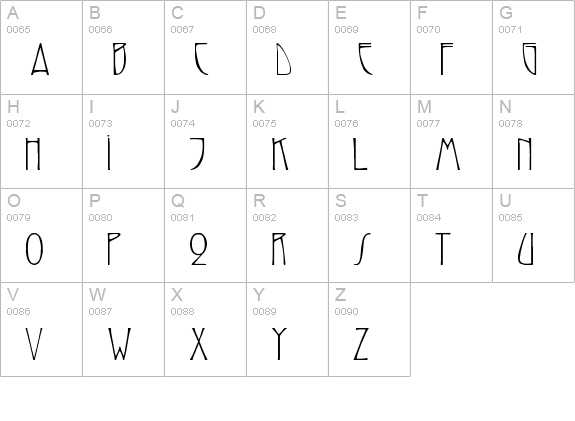
ReynoldsCaps Font Details
ReynoldsCaps font is a stunning and sophisticated typeface that exudes elegance and class. With its clean and sharp lines, this font is perfect for any design project that requires a touch of refinement and professionalism. The tall and narrow letters give ReynoldsCaps a sleek and modern look, making it ideal for logos, headlines, and branding materials. What sets ReynoldsCaps font apart is not just its exceptional design, but also the fact that it is available for free. Yes, you heard that right - this extraordinary font can be downloaded at no cost! It's a rare gem in the world of typography, where high-quality fonts often come at a premium price. To get your hands on this incredible font, simply visit FontsMarket.com. There, you will find a vast collection of fonts, including ReynoldsCaps, waiting to be explored and downloaded. FontsMarket.com is a trusted source for font enthusiasts, offering a wide range of styles and designs to suit every taste and project. Whether you are a professional designer, a creative hobbyist, or someone looking to add a touch of sophistication to their personal documents, ReynoldsCaps font is the perfect choice. With its timeless elegance and availability as a free download, you can elevate your design projects without breaking the bank. So why wait? Head over to FontsMarket.com and start exploring the world of ReynoldsCaps font. It's time to unleash your creativity and make a bold statement with this remarkable and freely available typeface.